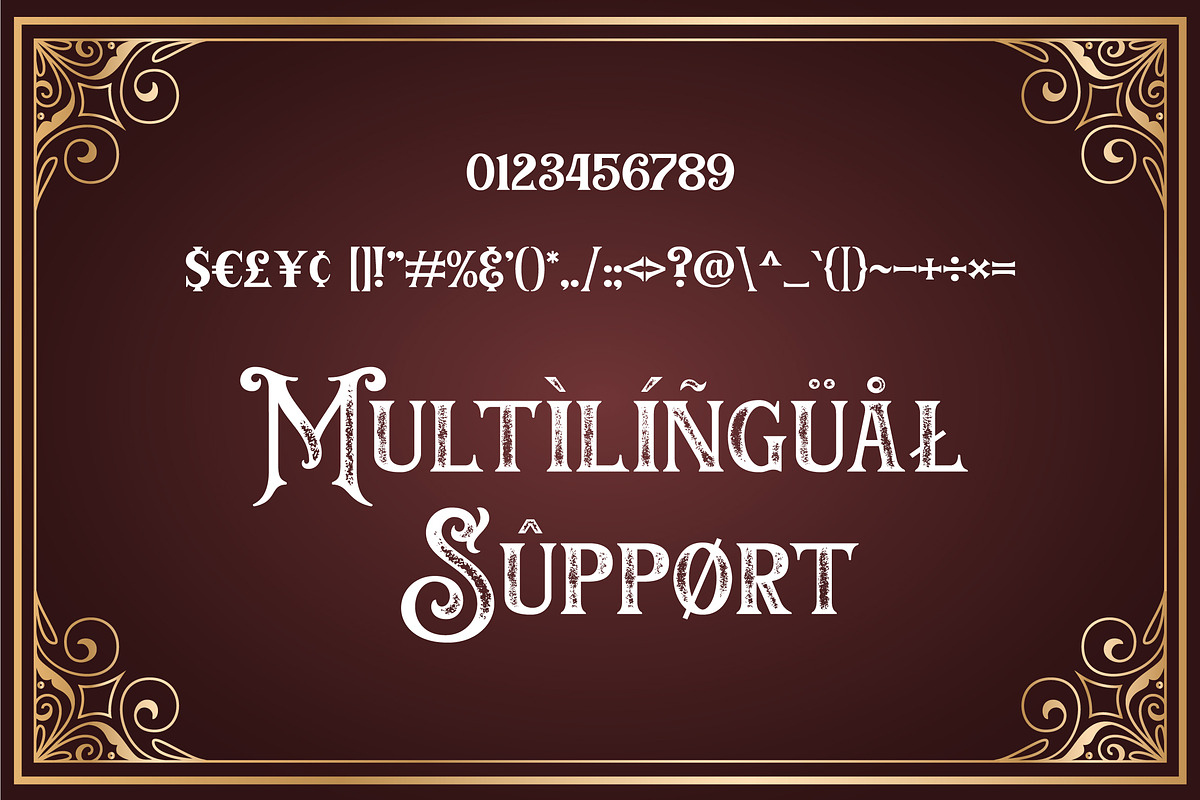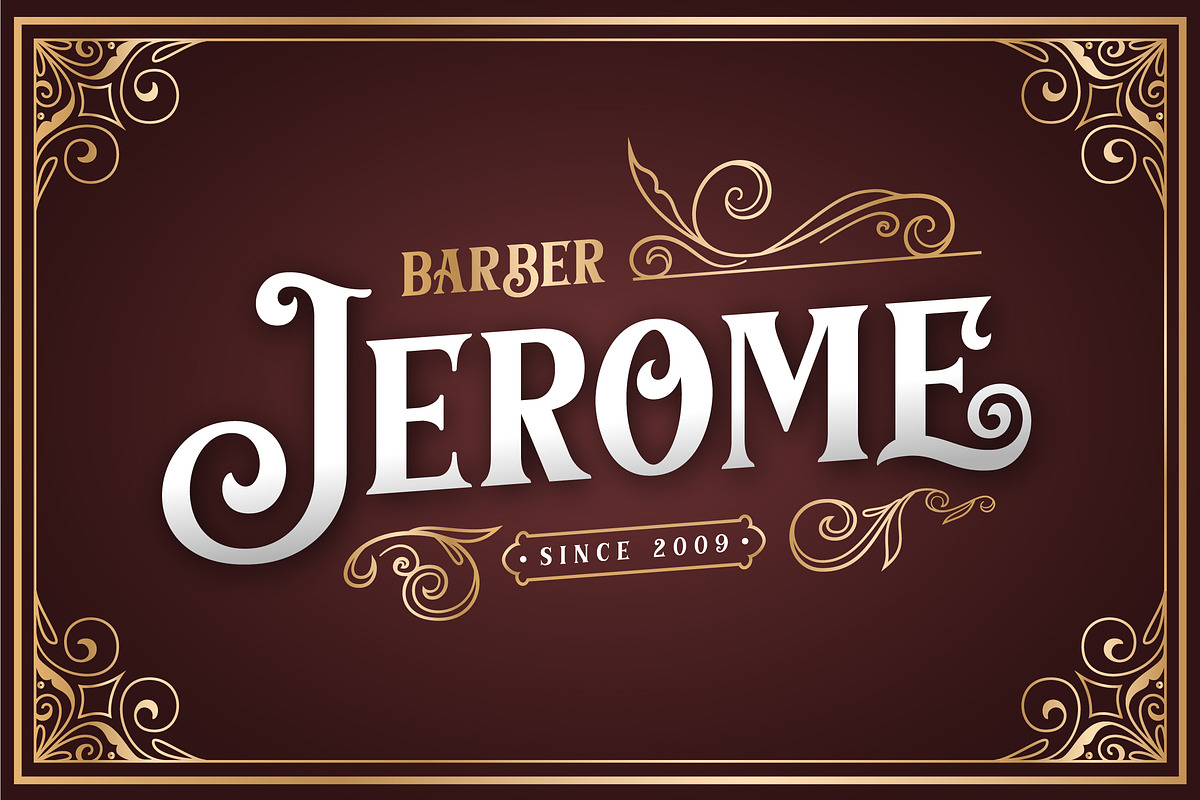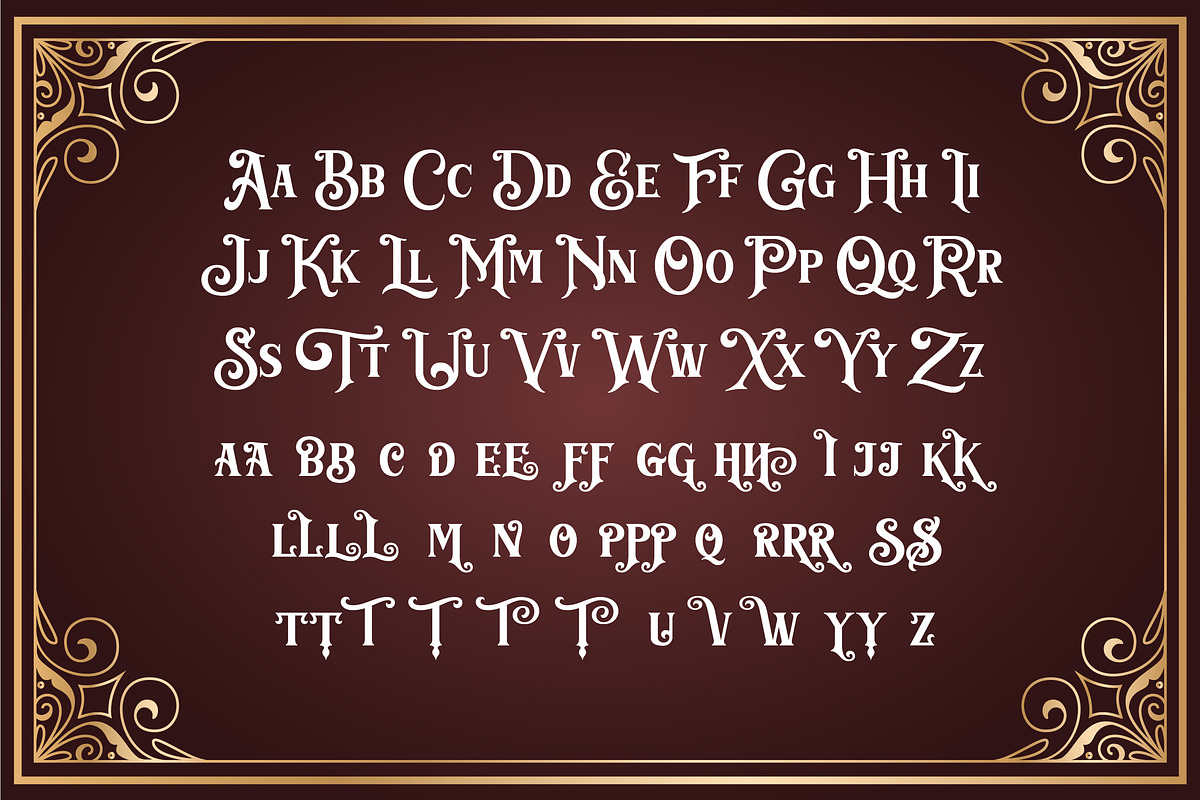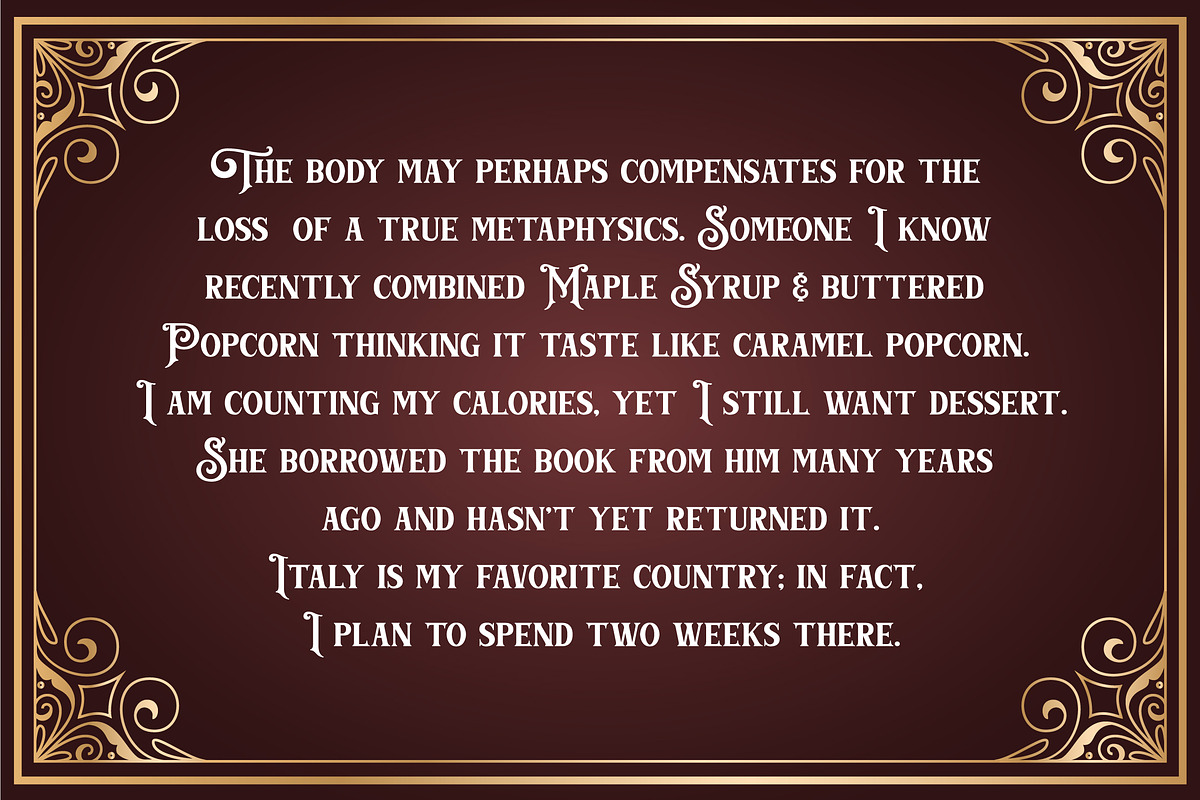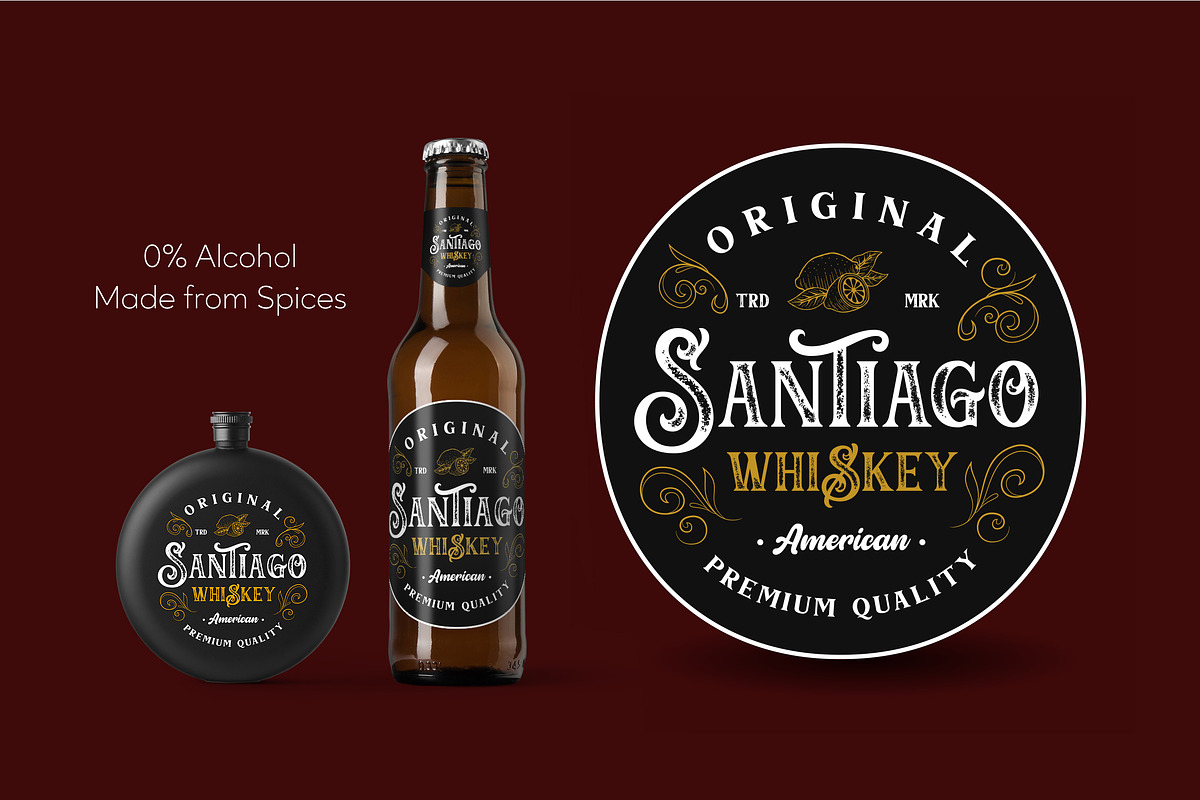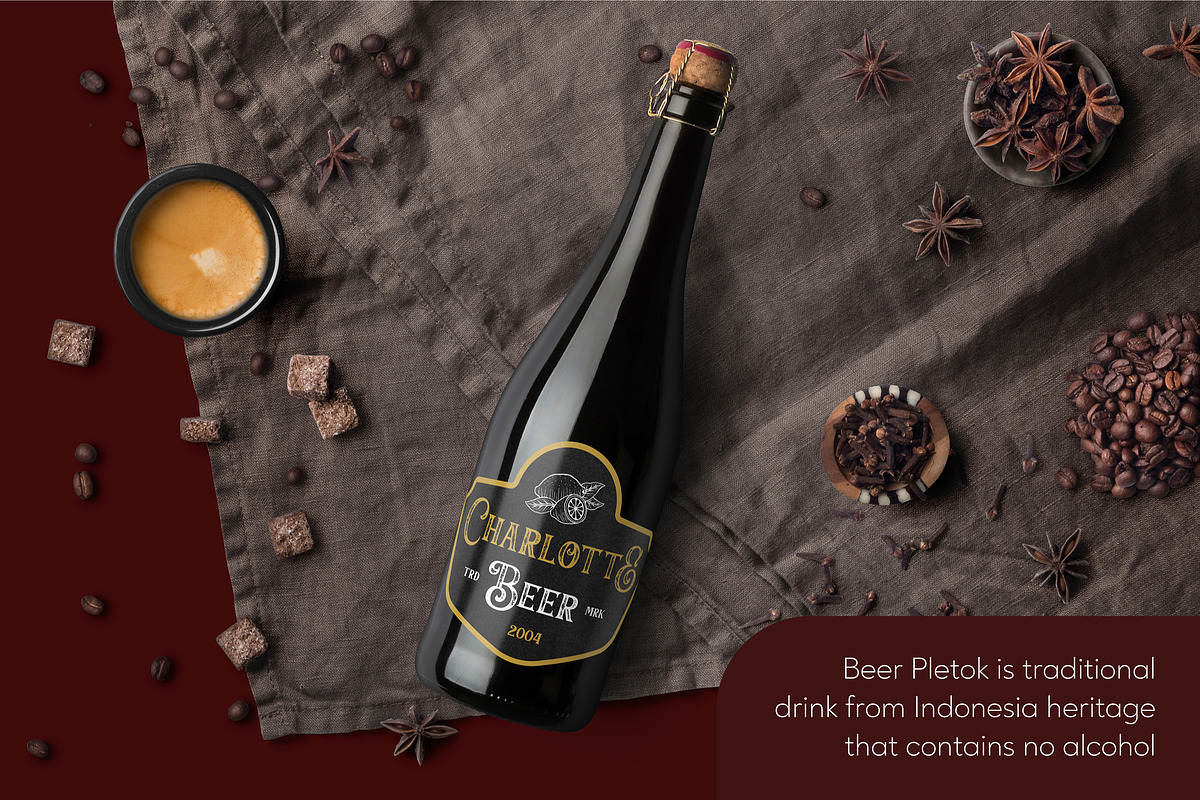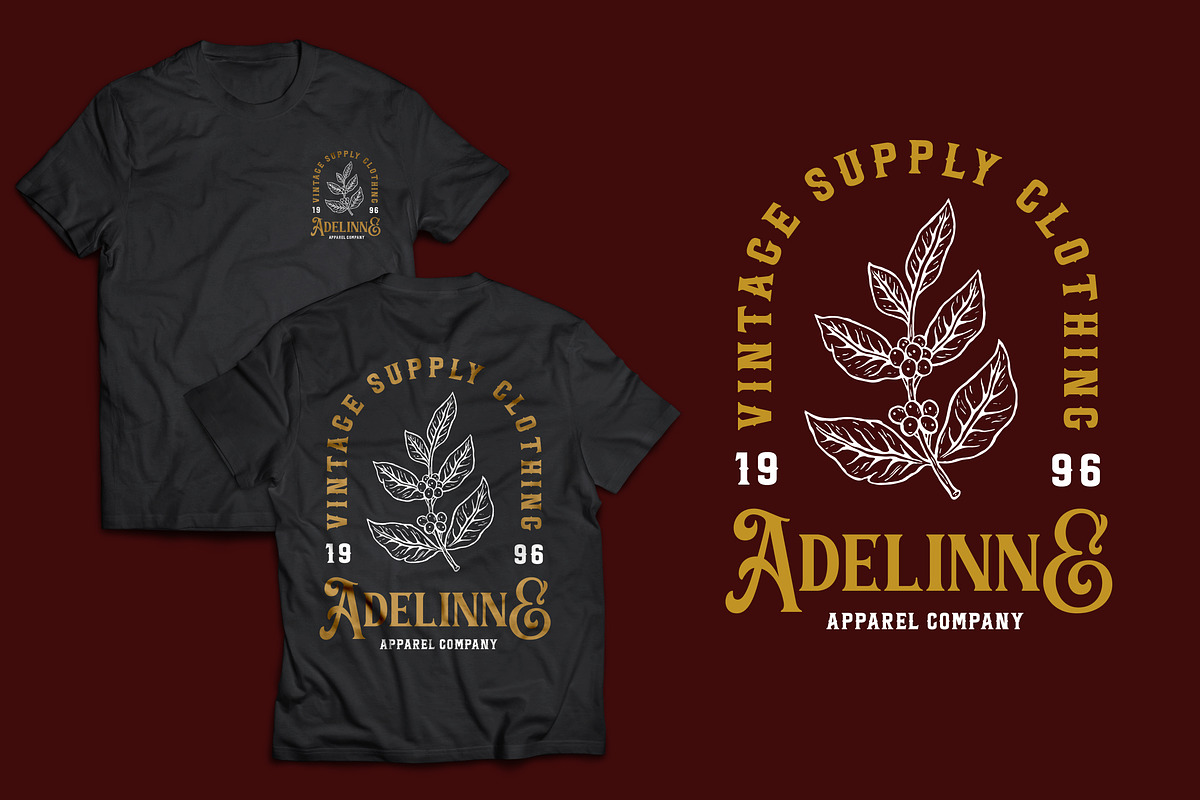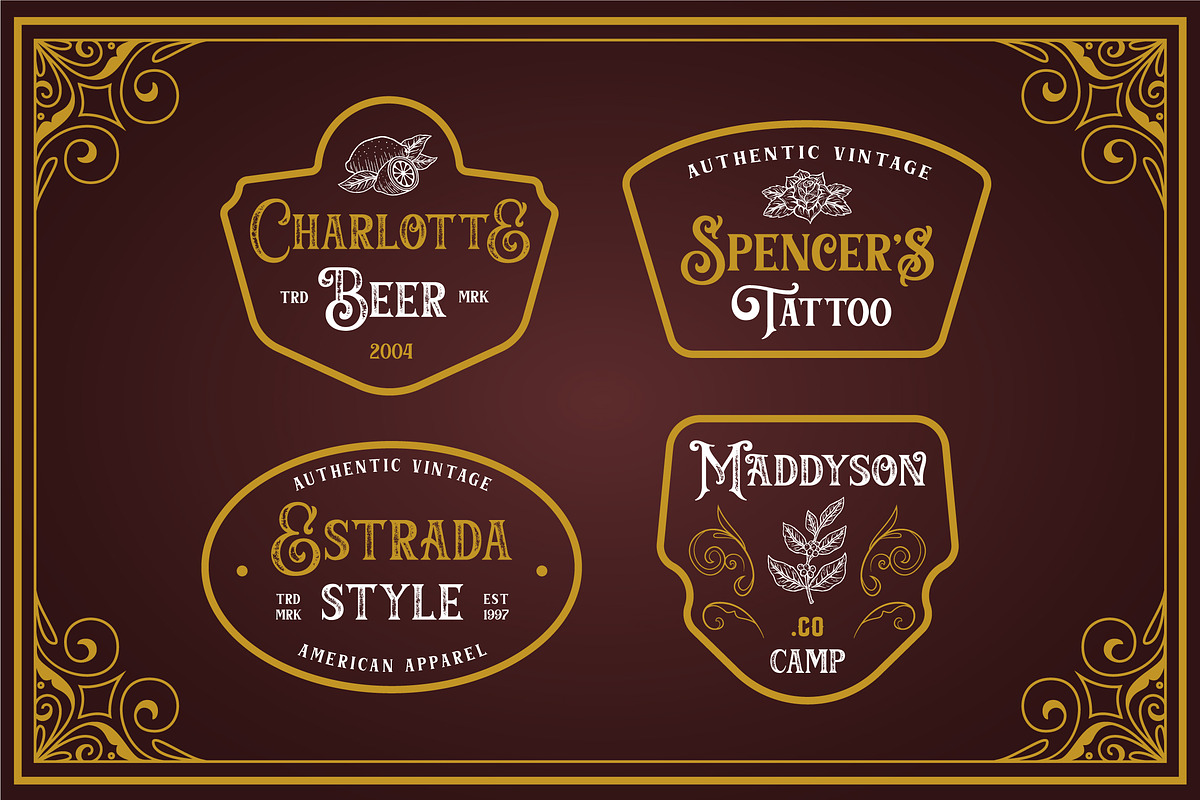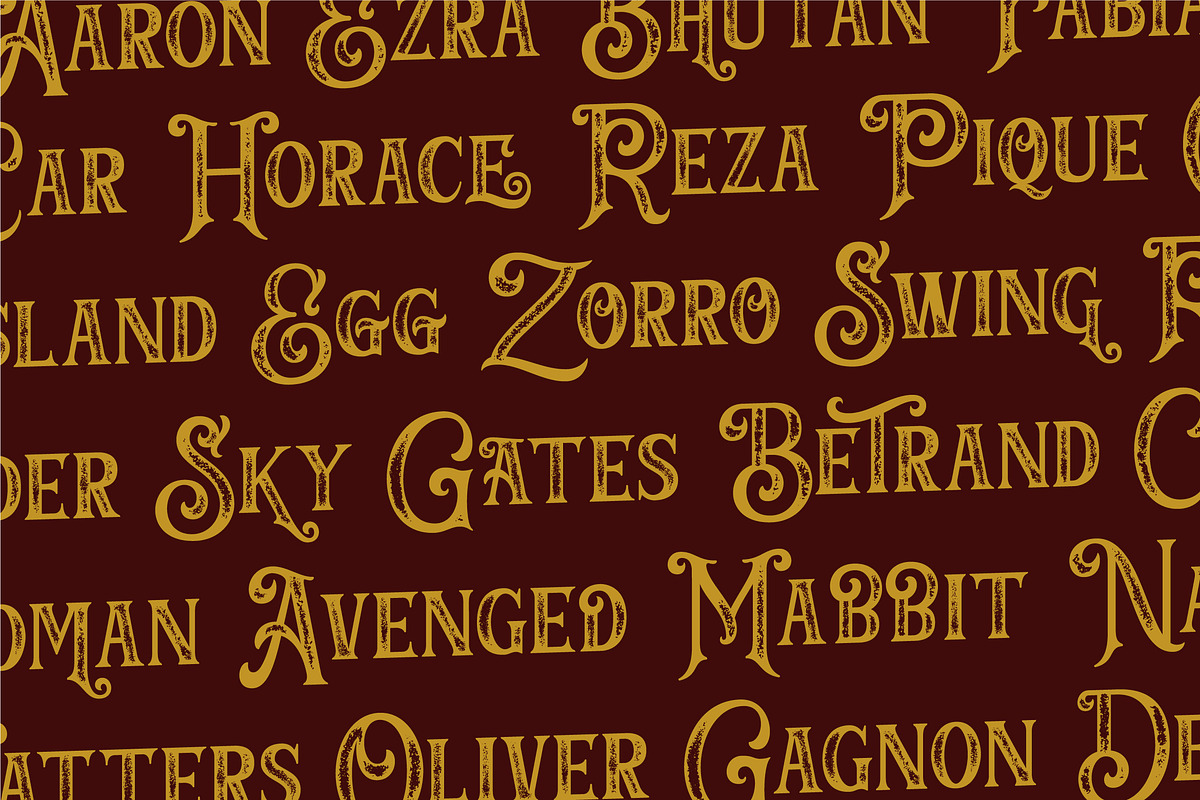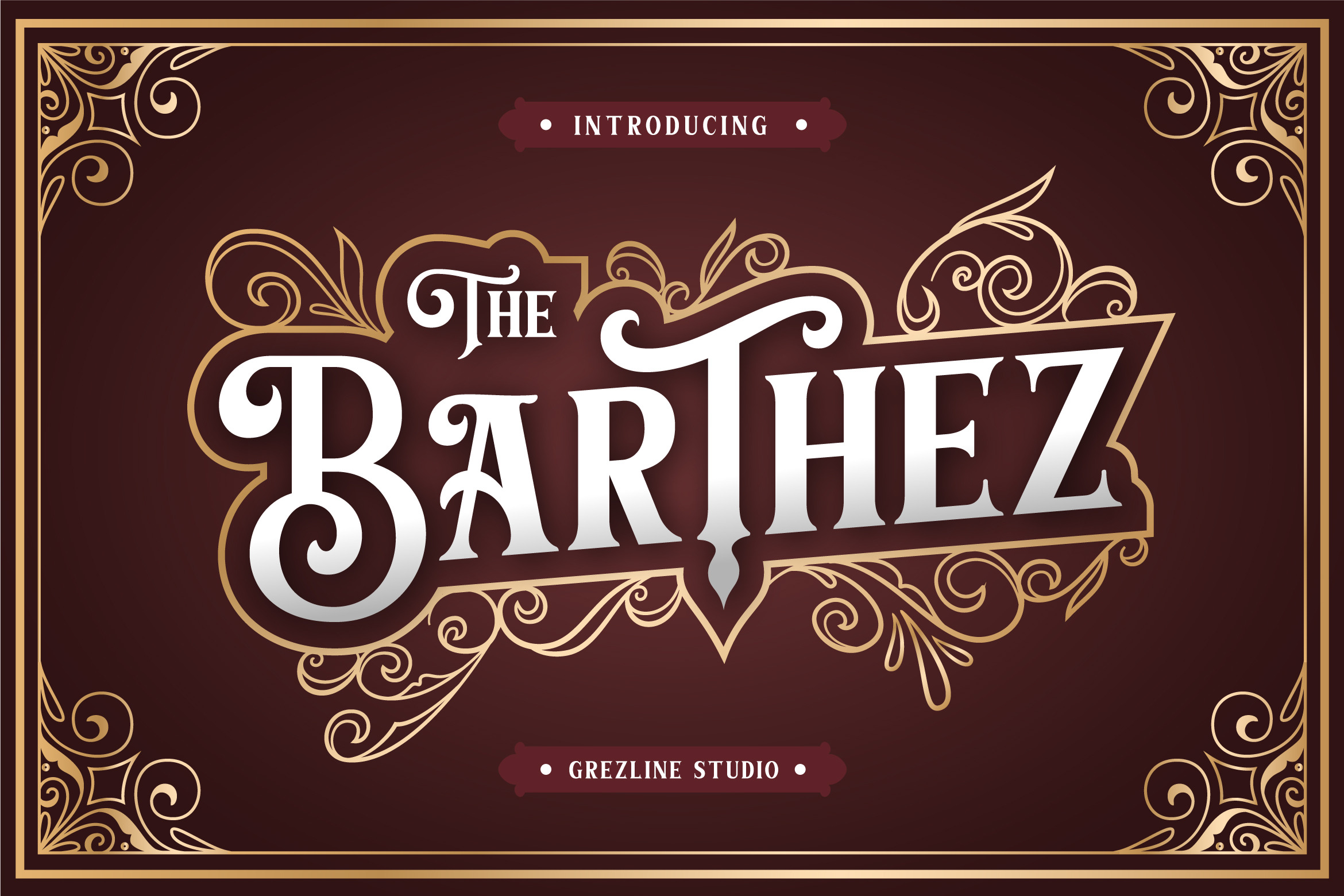
Barthez - Victorian Serif Font
Barthez is an old vintage serif font that heavily inspired by victorian design. Come with Regular, Inline and Stamp version, each has a shadow version which makes 6 font styles variation. Perfectly match to use for any branding design that needs a handcrafted victorian touch feel. Barthez is a font that you can use to make a vintage logo for branding, typography design, magazine or book cover, website header, product packaging, t-shirt design, label poster and many more.
- Multilingual Language